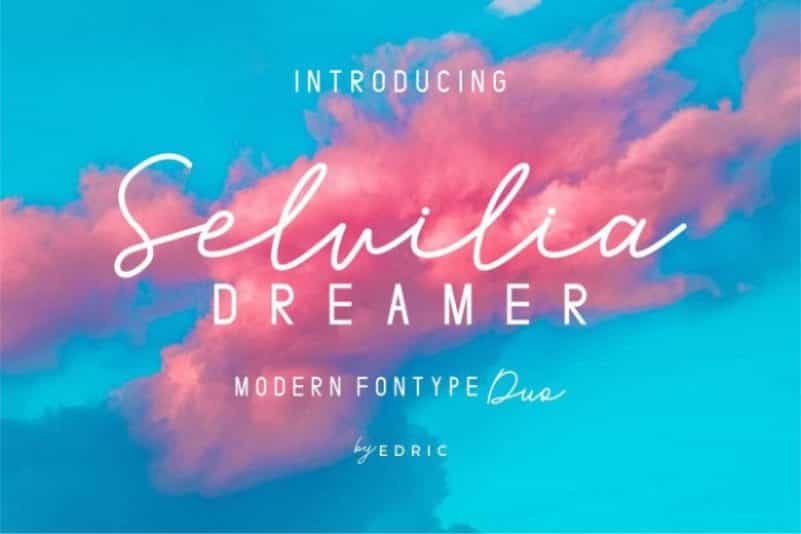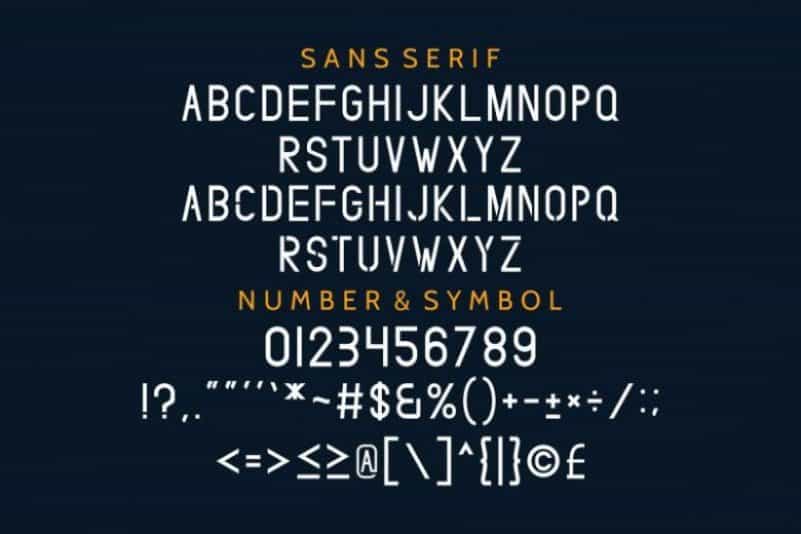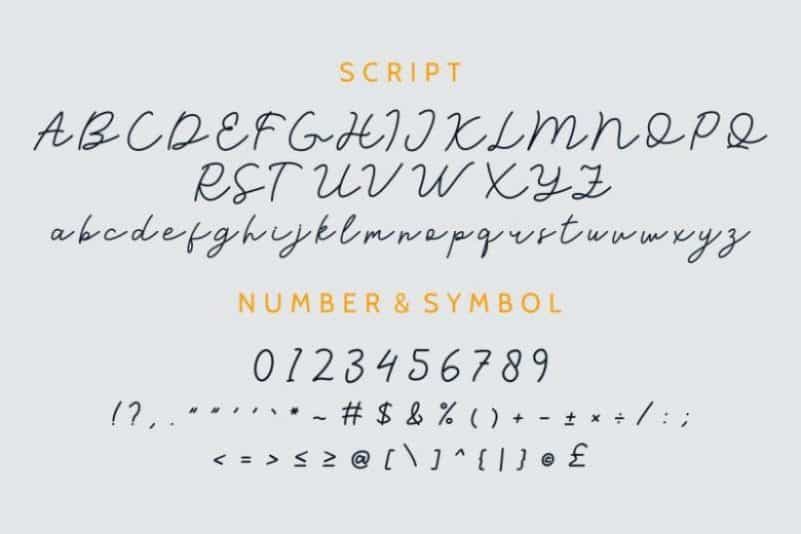
Discover Selvillia Dreamer Font Duo, part of the Sans Serif Handwritten Display collection—a versatile and unique font perfect for adding a personal touch to your projects. Download it for free and enjoy crafting designs with style, from invitations to social media posts. This font is available exclusively for personal use, giving you the freedom to create without limits. Unlock your creativity with Selvillia Dreamer Font Duo today!
Selvillia Dreamer is a duo fonts : Script and Sans Display This is a hand made fonts, It composed of two styles: Script and Sans Display. It will be great for many cases: posters, logos, flyers, brandings, signages etc.